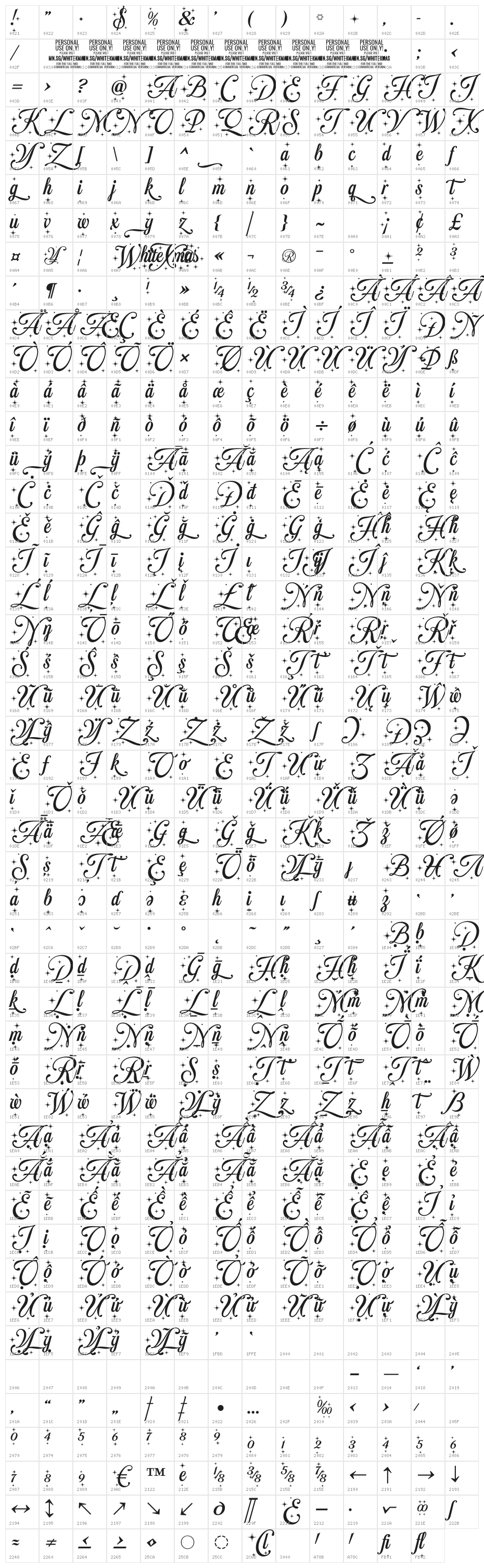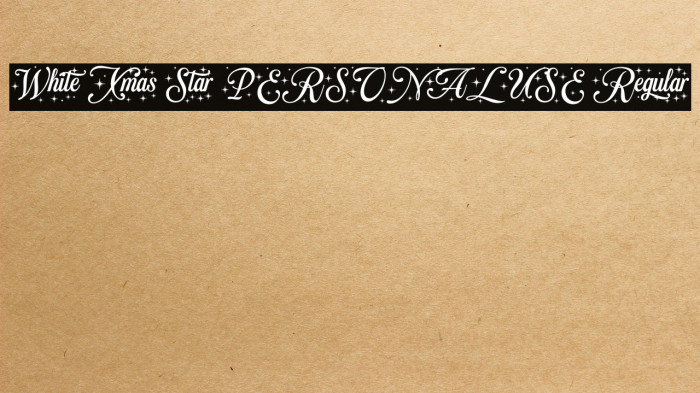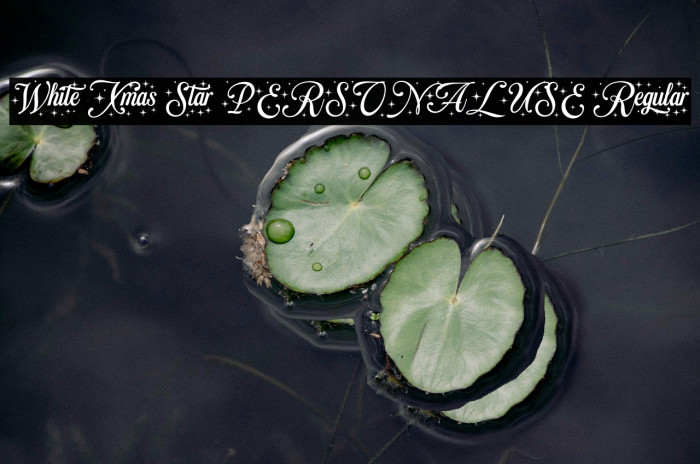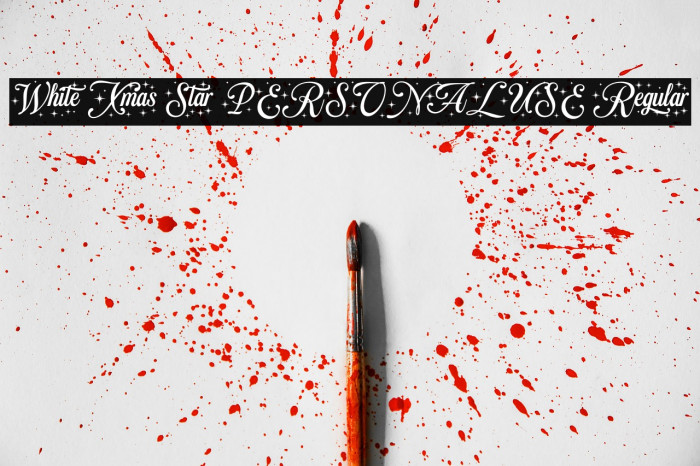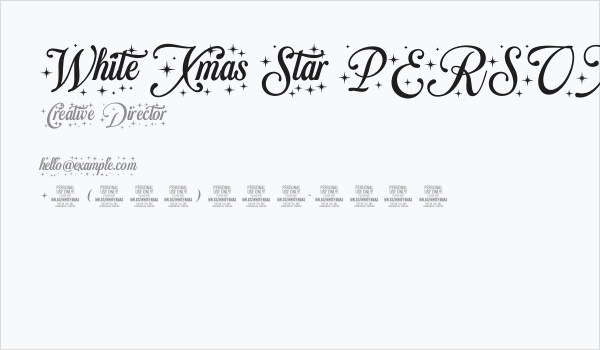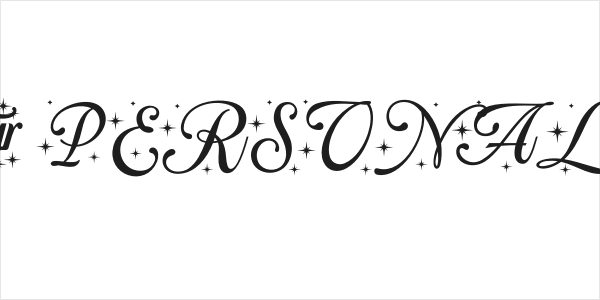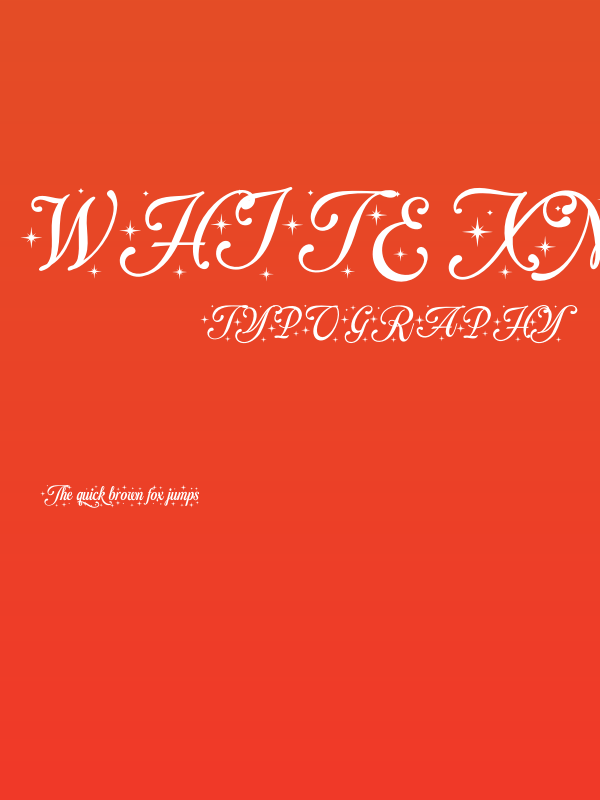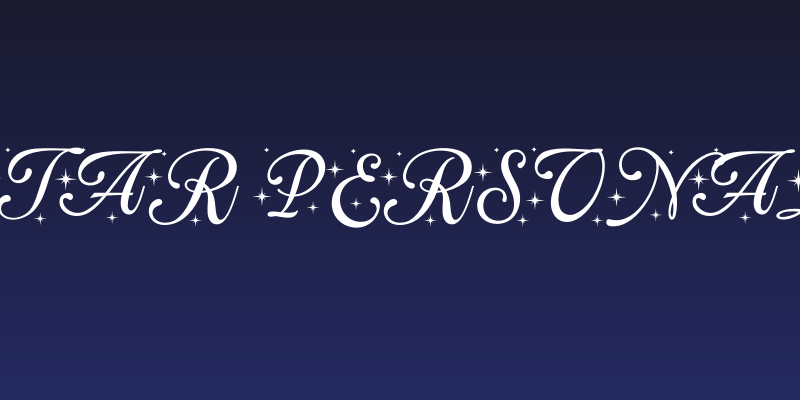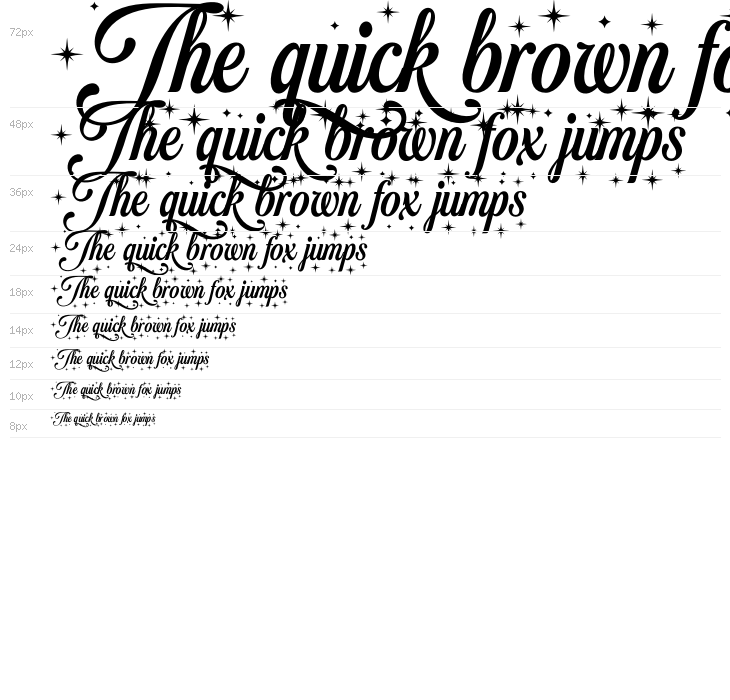
White Xmas Star PERSONAL USE Regular Font
White Xmas Star PERSONAL USE Regular Description
This font features an elegant and decorative style, characterized by its script-like appearance with added star embellishments. The uppercase letters are adorned with small stars, giving it a festive and whimsical feel. The lowercase letters maintain a smooth, flowing script style, enhancing its decorative nature. The numbers and special characters are consistent with the overall theme, incorporating similar star motifs. This font is visually striking and captures attention with its unique blend of script and decorative elements.
Use CaseHeadlines, Logos, Decorative text
Proposed ProjectsIdeal for holiday cards, festive invitations, decorative posters, and branding projects that require a whimsical touch.